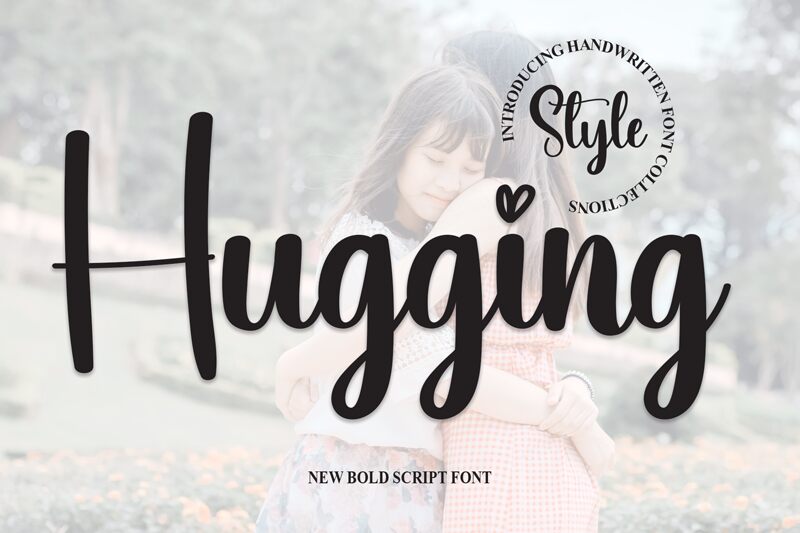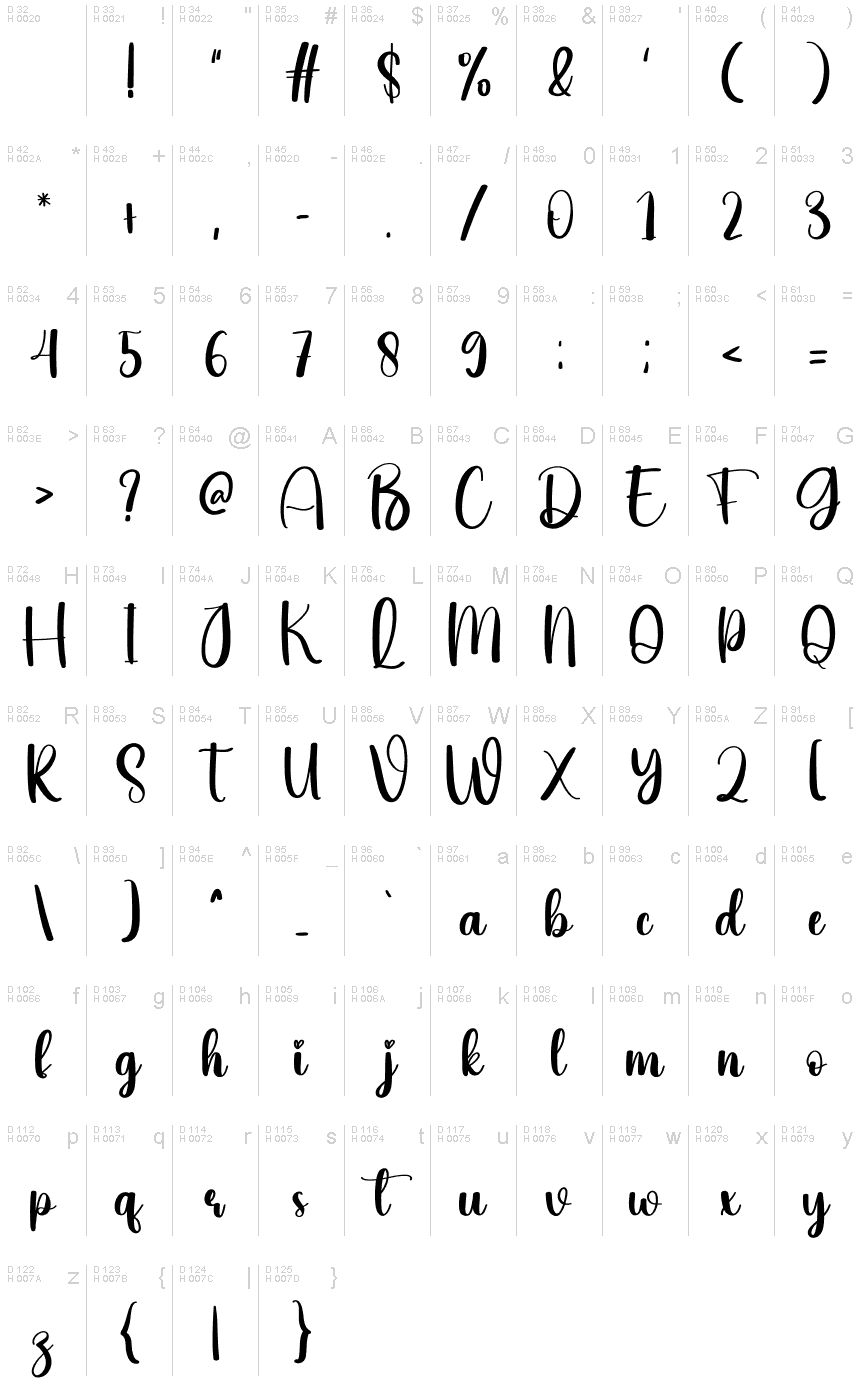
Hugging
Hugging, a creation of Scratchones, is a handwritten font that exudes warmth and charm. Its semi-light weight gives it an airy and approachable feel, perfect for designs that aim to be inviting and personable. The organic flow of the letters in Hugging captures the spontaneity of hand-drawn strokes, making each character appear as if it were crafted with care.
This font's aesthetic appeal lies in its balance between legibility and artistic flair. The subtle irregularities mimic natural handwriting, while clean lines maintain clarity. The inclusion of playful elements like the heart above the 'i' reinforces its casual yet affectionate style.
Ideal for projects that require a personal touch—such as invitations, greeting cards, or branding for boutique businesses—Hugging offers versatility while retaining its distinctive character. Its handwritten style can also provide a refreshing contrast in digital spaces craving authenticity and human connection.